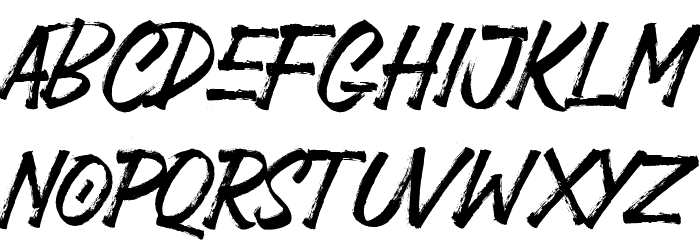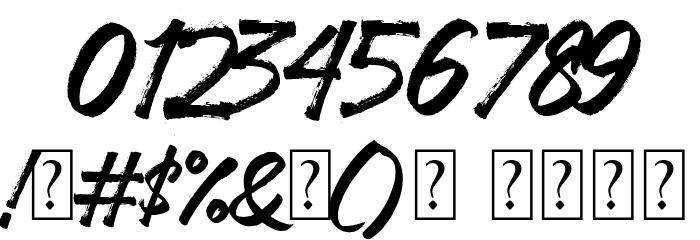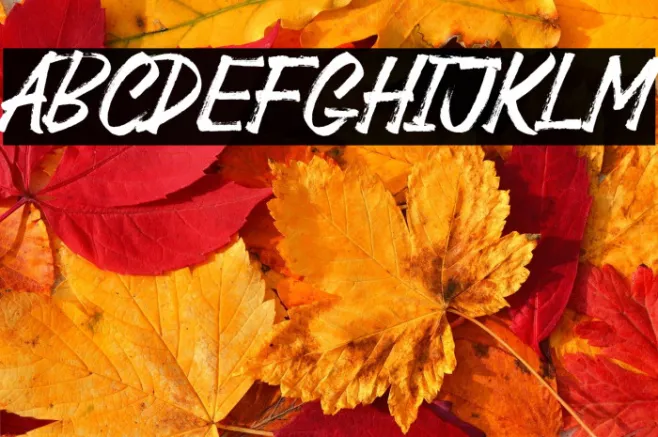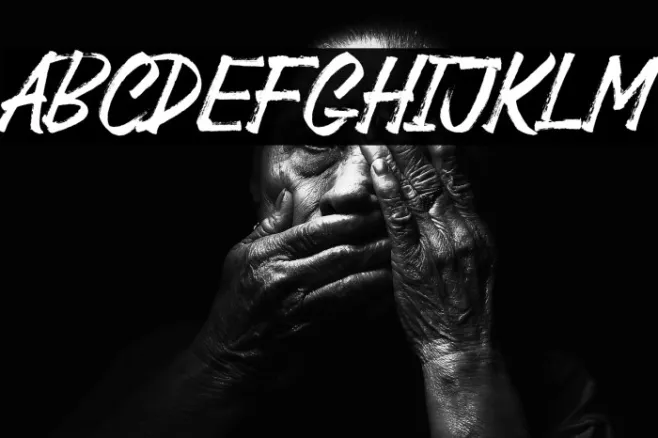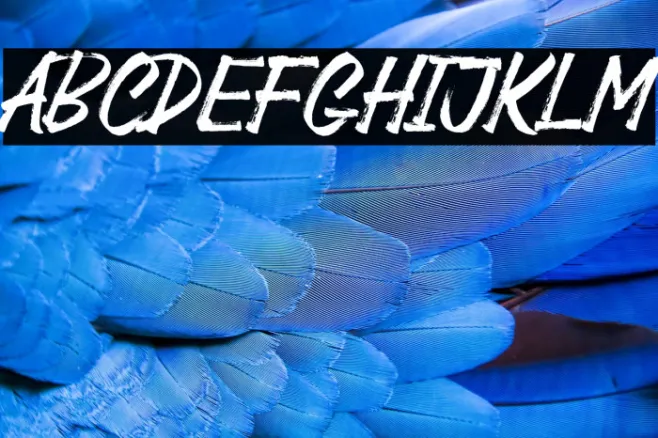
Black Jackal Font
This font features a bold and dynamic script style with a brush-like texture, giving it a hand-painted appearance. The strokes are thick and uneven, adding a sense of energy and spontaneity. The uppercase and lowercase letters are fluid and connected, enhancing the handwritten feel. The numerals and special characters maintain the same lively aesthetic, making the font versatile for various creative applications. Its distinct and artistic look makes it suitable for projects that require a personal touch or a bold statement.
A bold, brush-style script font with a dynamic and artistic flair.
- Font: Black Jackal
- Proposed Projects: Ideal for branding, posters, invitations, and any design needing a bold, artistic touch.